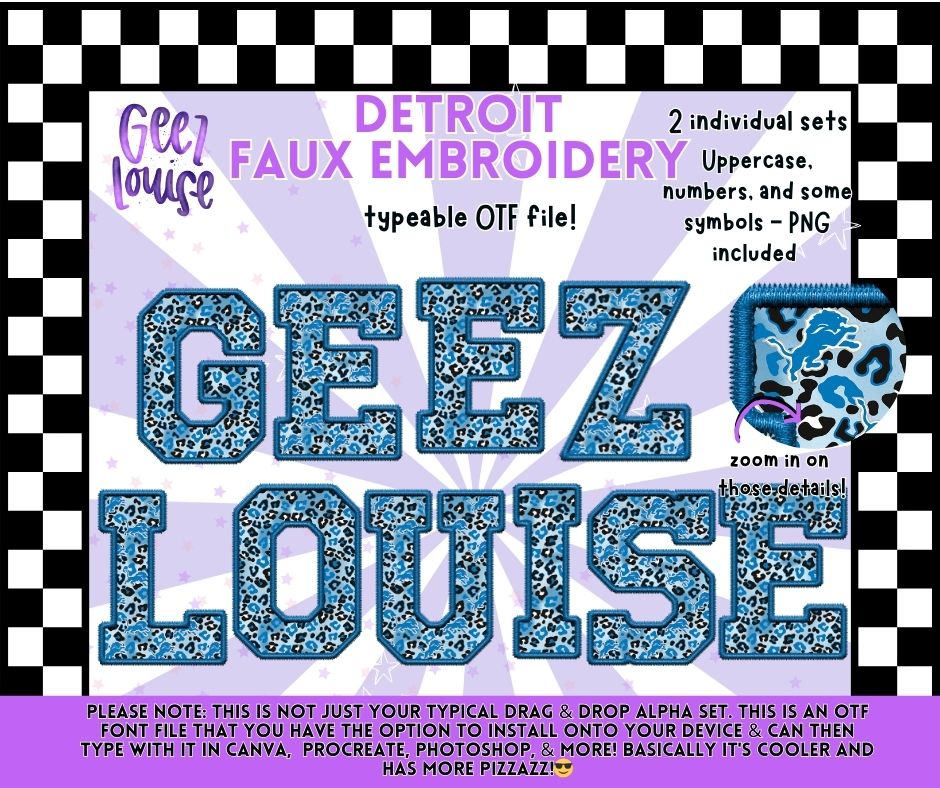
Detroit Faux Embroidery Typeable OTF Alpha Font + PNG Sets
Crank the sass all the way up with Detroit Faux Embroidery Alpha, a bold, stitched-up typeable OTF font bursting with leopard print, texture, and unapologetic flair.
2 Individual Faux Embroidery Alpha Sets
Colorful leopard print with faux stitched embroidery edges Bold, playful, and full of personality Perfect for tees, tumblers, sublimation, branding, social media graphics, and digital designs that need to shout (not whisper)
If you’re over basic fonts and ready for something with stitched swagger and serious pizzazz, Geez Louise delivers.